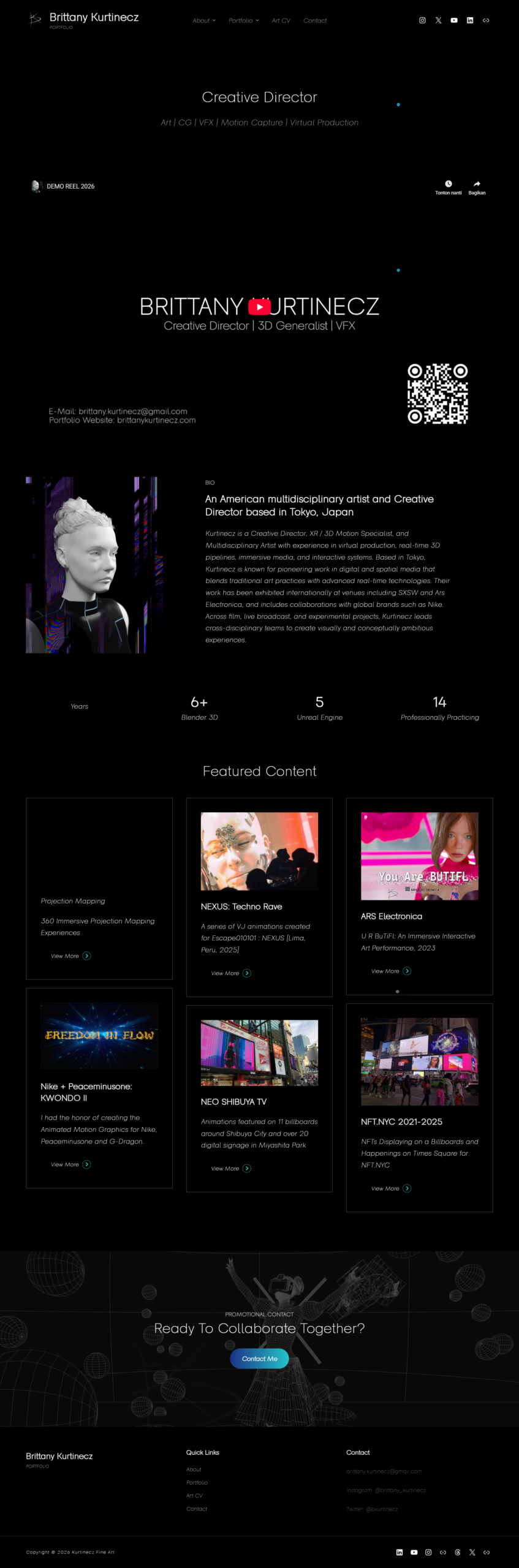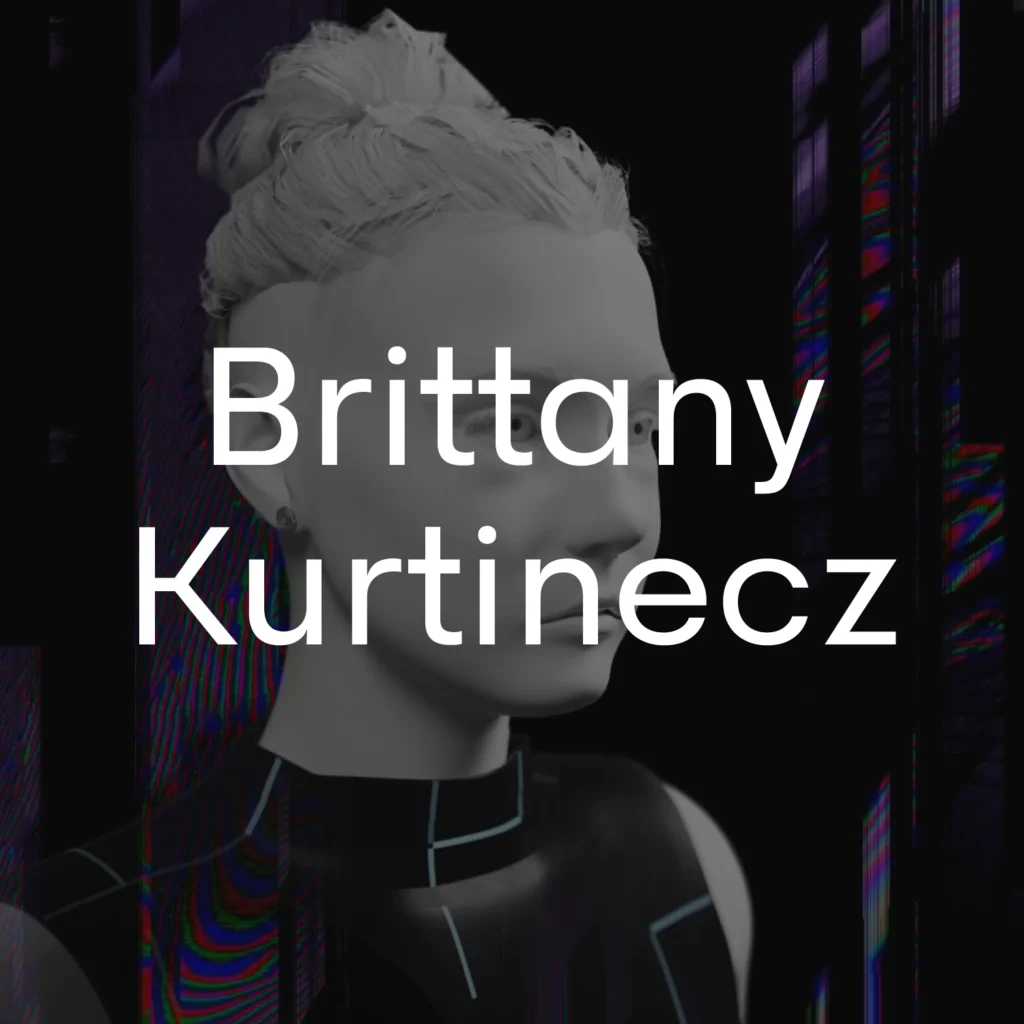
Brittany Kurtinecz
Cover Font in Used - Brittany Kurtinecz
FONT IN USED: NARU SANS
Brittany Kurtinecz presents a clean and thoughtful digital portfolio—focusing on clarity, structure, and a straightforward presentation of work. The layout reflects a modern approach where content takes priority, supported by a calm and minimal visual system.
Set in Naru Sans, the typography reinforces this direction with a neutral and highly readable character—supporting a clear hierarchy while maintaining a contemporary and professional tone across the website.